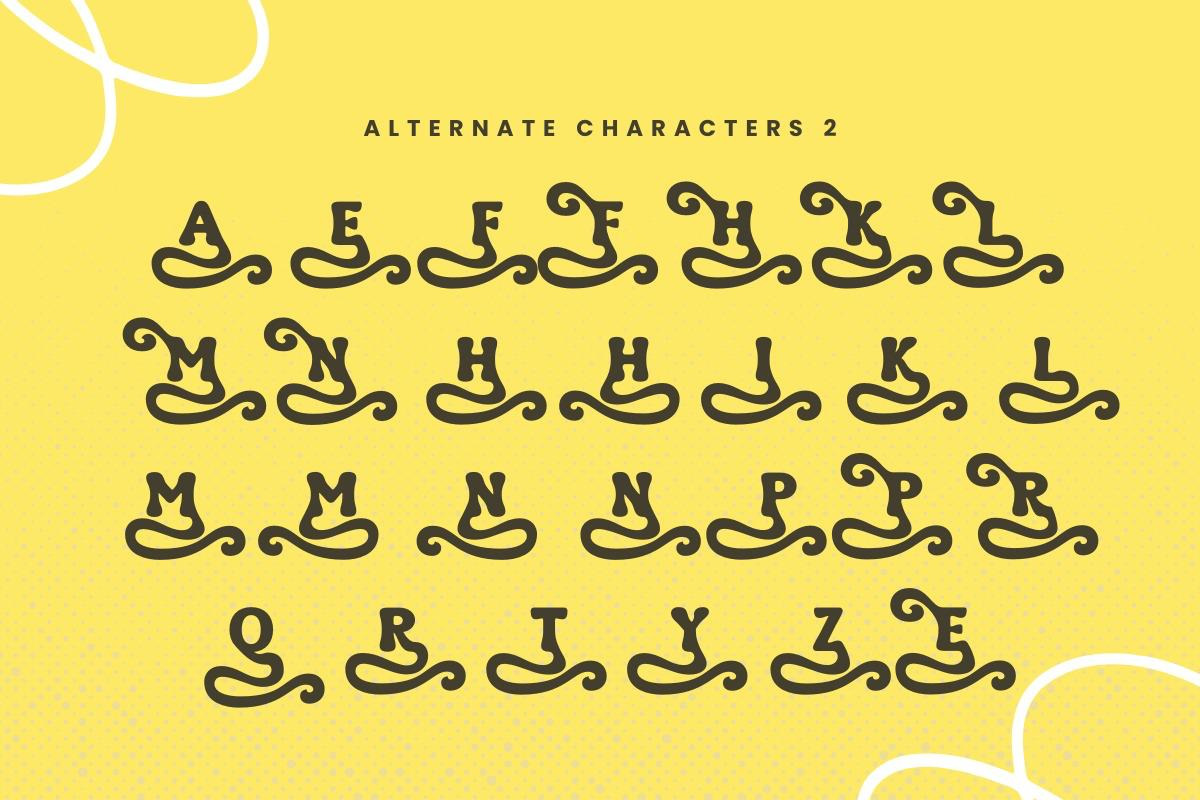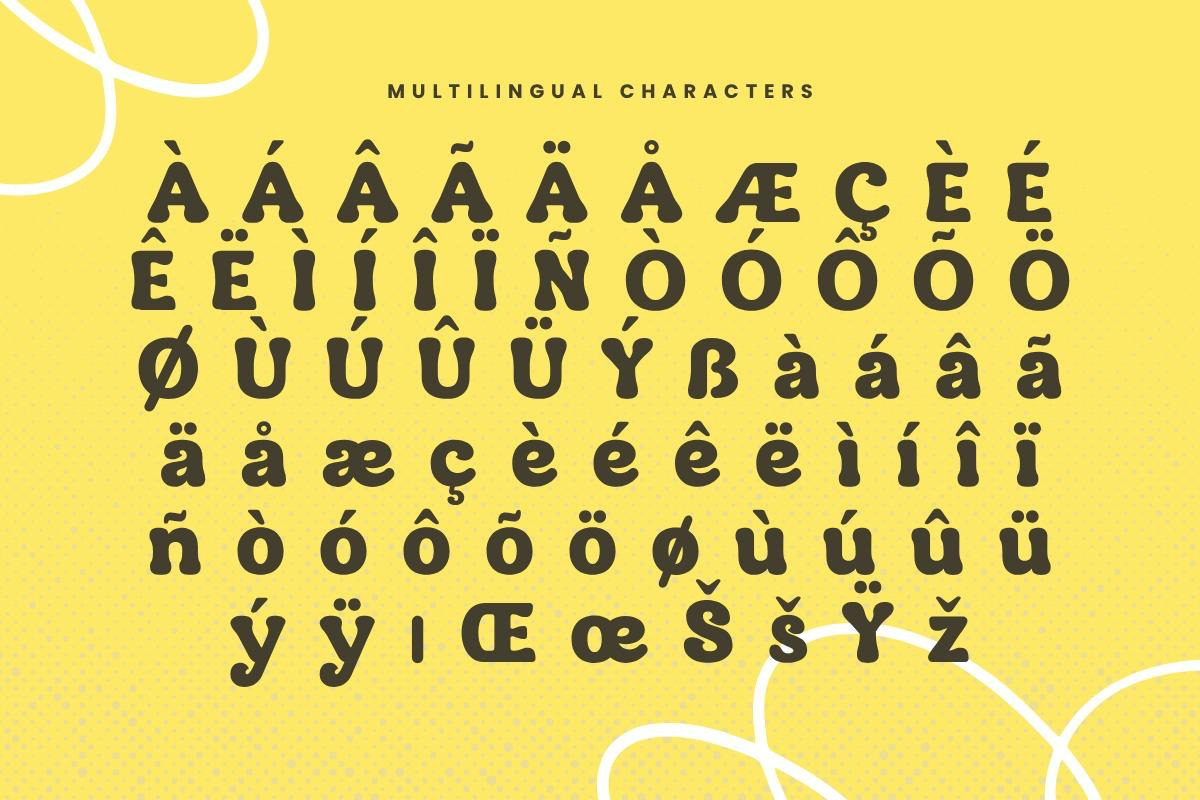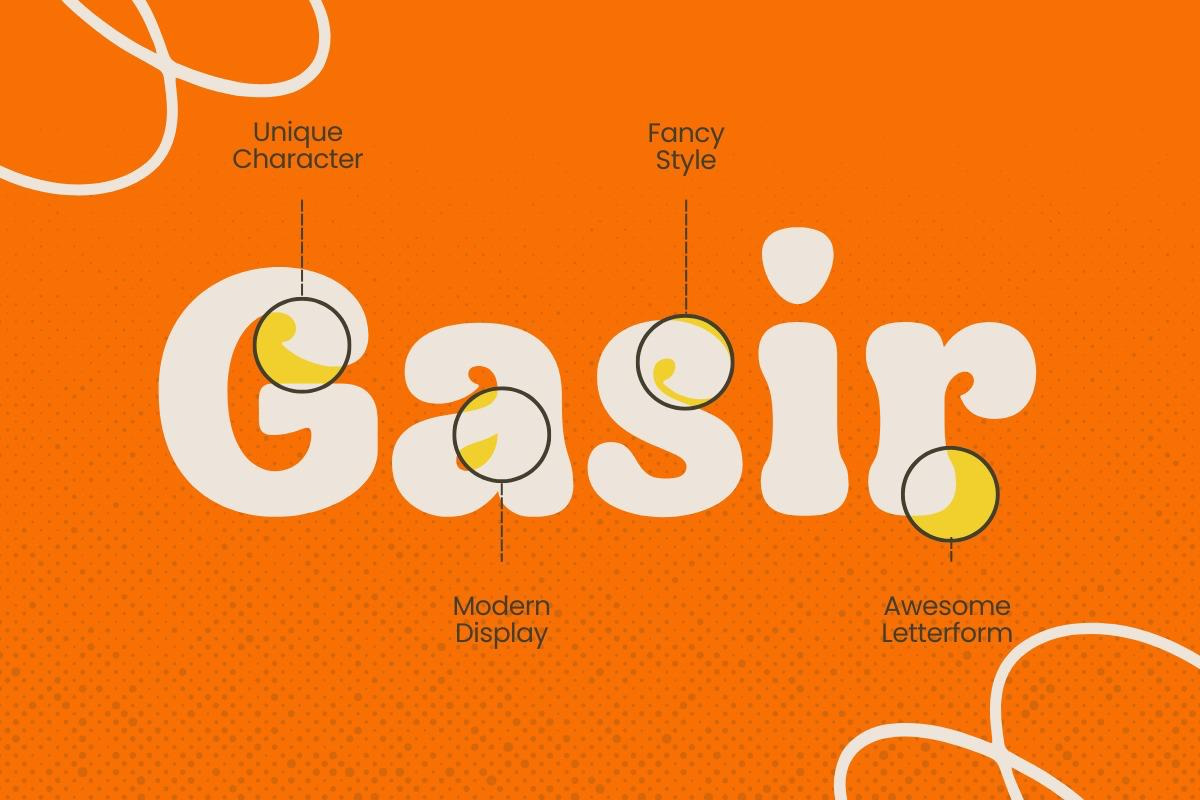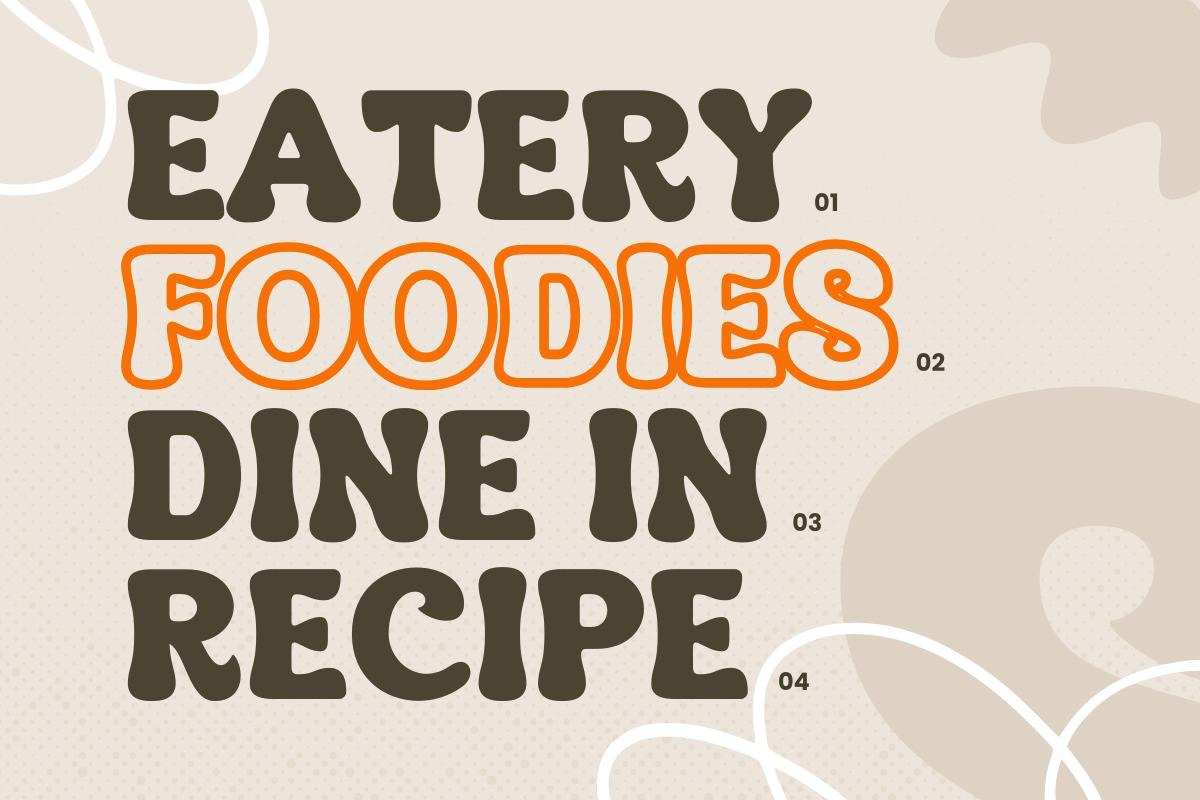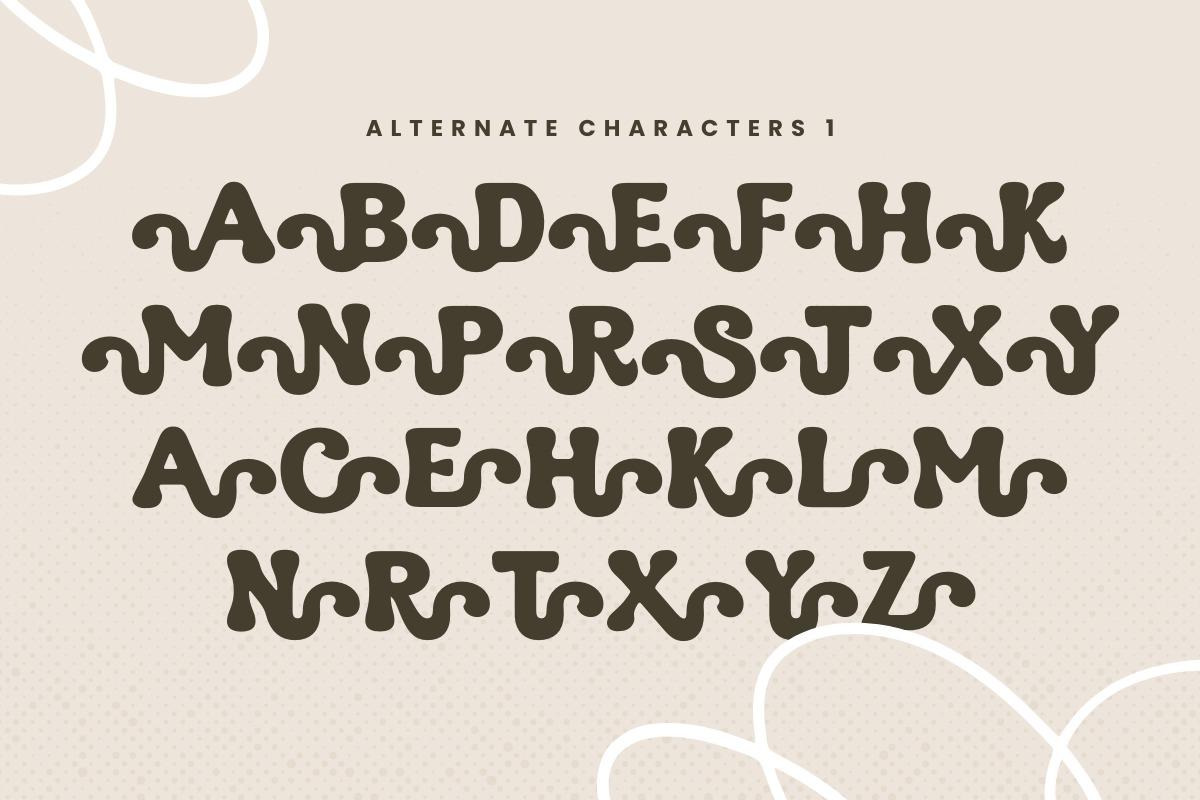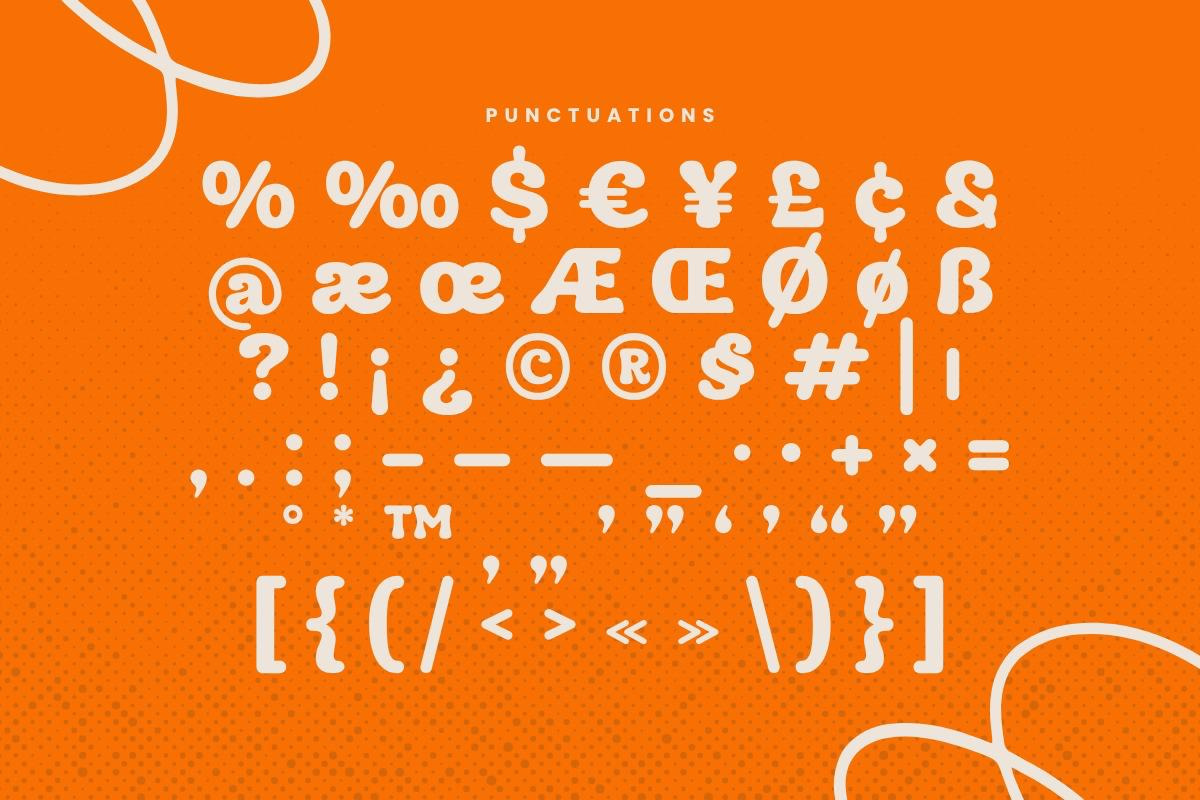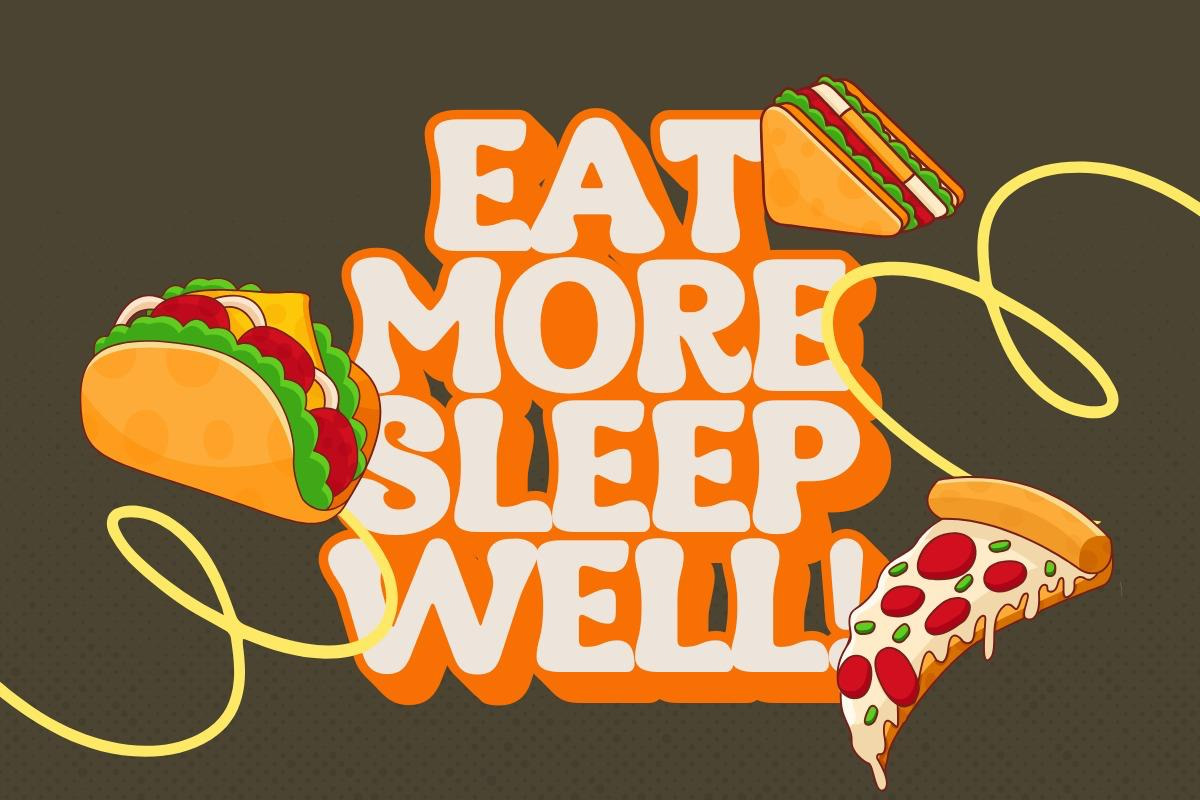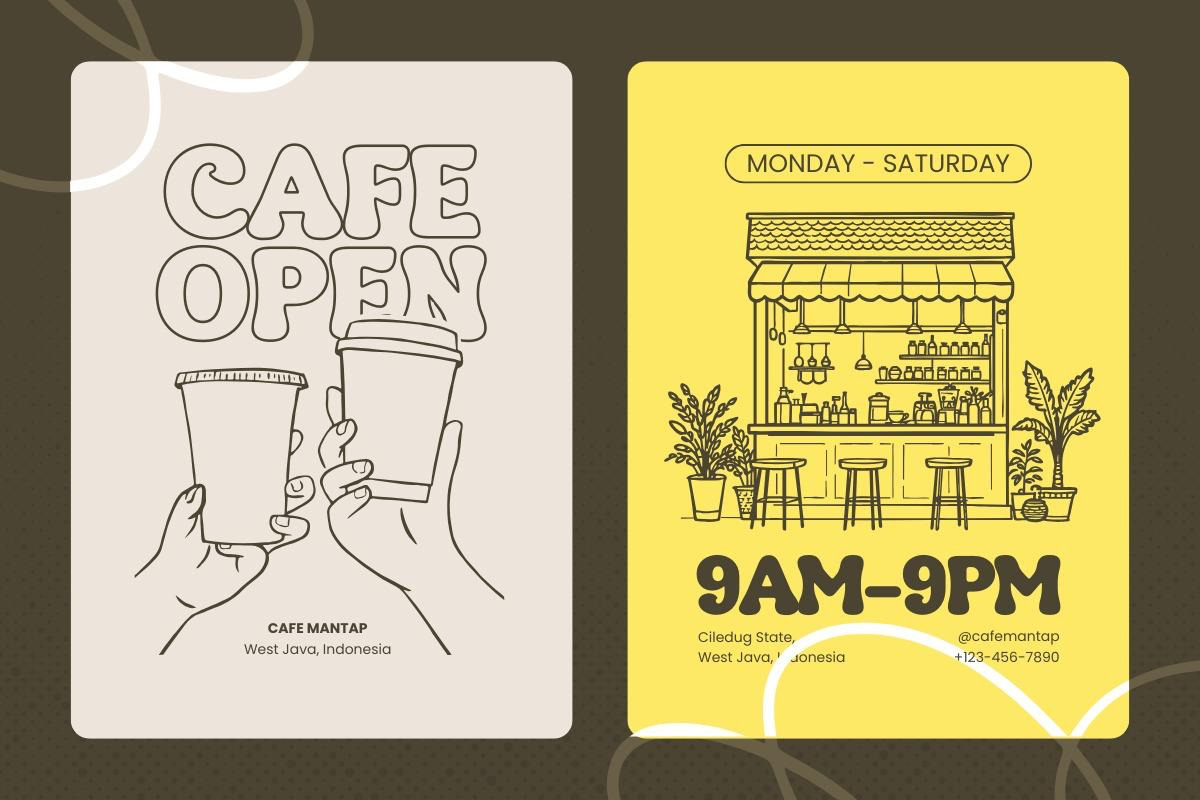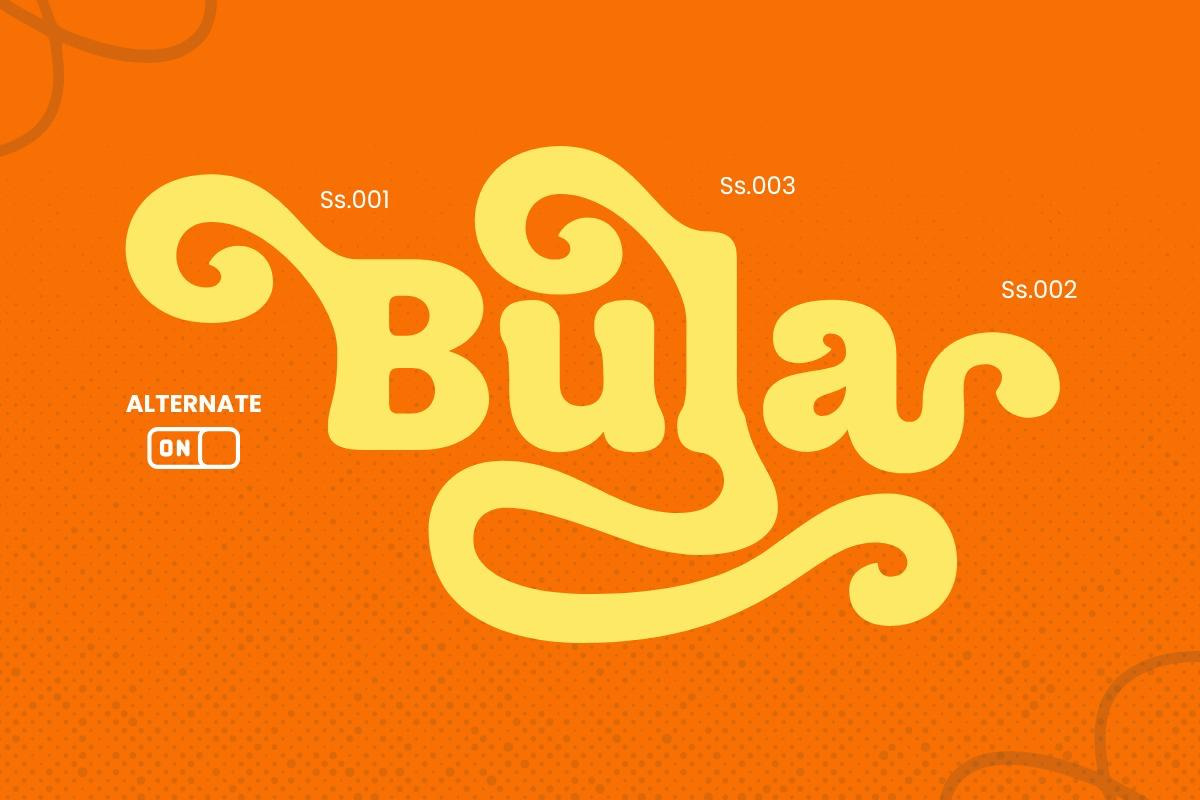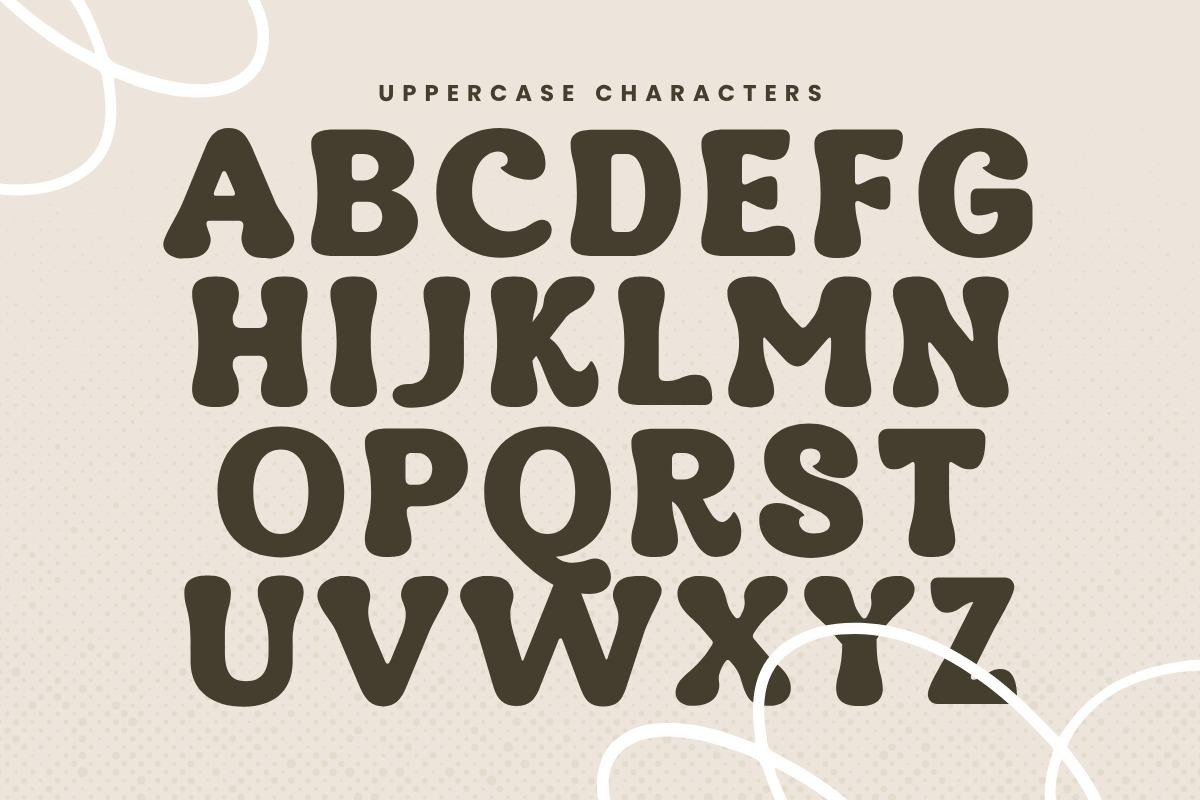
Hadlen - Playful Retro Serif
Hadlen is a unique and bold display font with a playful retro soul, designed to instantly grab attention and elevate your visual identity. Inspired by vintage lettering with a modern twist, Hadlen features chunky shapes, smooth curves, and expressive details that feel confident and full of character. Equipped with a rich collection of alternates, ligatures, and stylish swashes, this font gives you creative flexibility to craft standout logos, headlines, packaging, posters, and branding designs. With three versatile styles, Regular, Outline, and Extrude, Hadlen is perfect for designers who want a strong display font that feels nostalgic, fun, and visually impactful while remaining highly customizable.
Additional Accents
64 Languages
Kerning